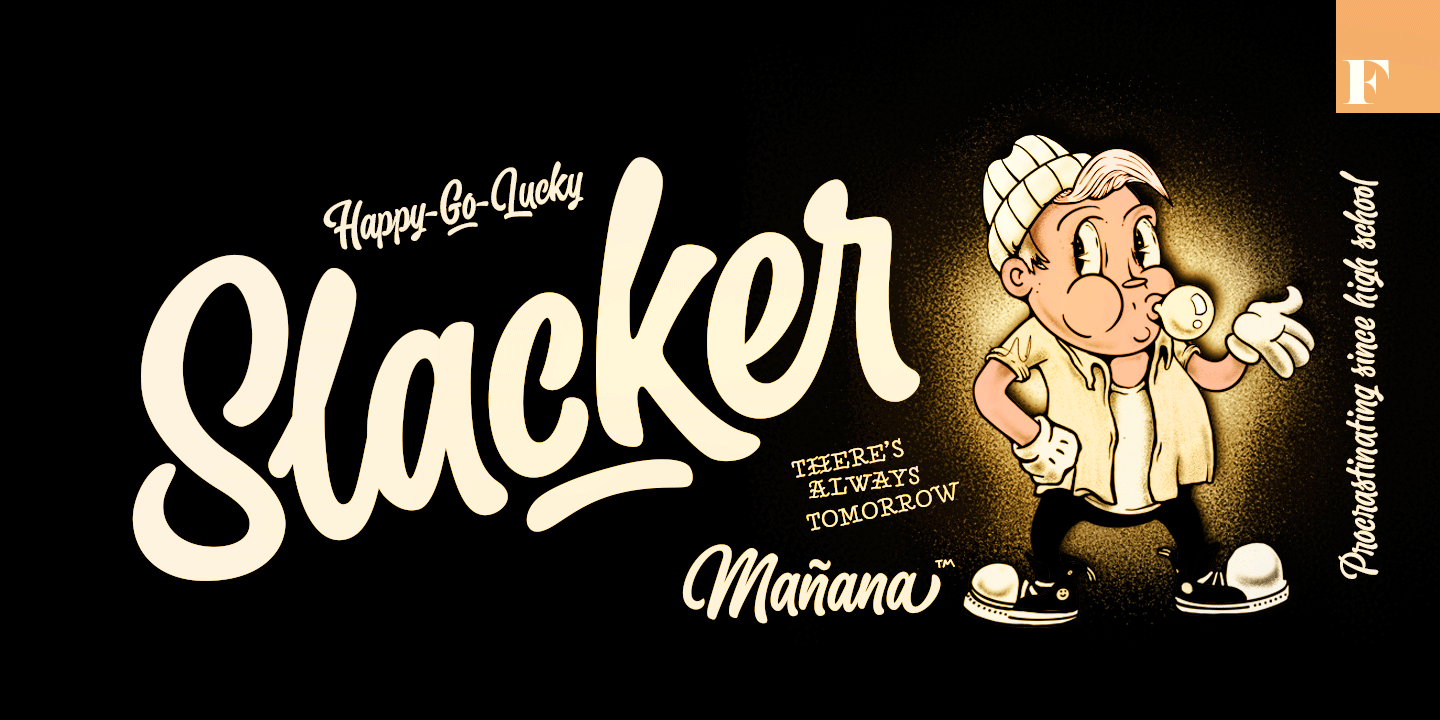
Slacker Font Free Download is a laid-back, casual script typeface that perfectly captures a relaxed and effortless vibe. Ideal for lifestyle branding, casual apparel designs, social media graphics, personal blogs, and creative projects that need a friendly, approachable touch.
What makes Slacker Font so exciting is its natural, flowing strokes and informal style that feels like handwritten notes from a chill friend. It adds personality and warmth without feeling forced or overly decorative.
The Slacker Font family includes Regular and Bold styles, providing flexibility to emphasize key design elements while maintaining the font’s easygoing character.
Whether you’re crafting relaxed logos, cozy invitations, or casual quotes, Slacker Font Free Download brings a genuine, carefree spirit to your typography. It’s free for testing but requires a commercial license for professional use. Let your creativity unwind with this effortlessly cool font.